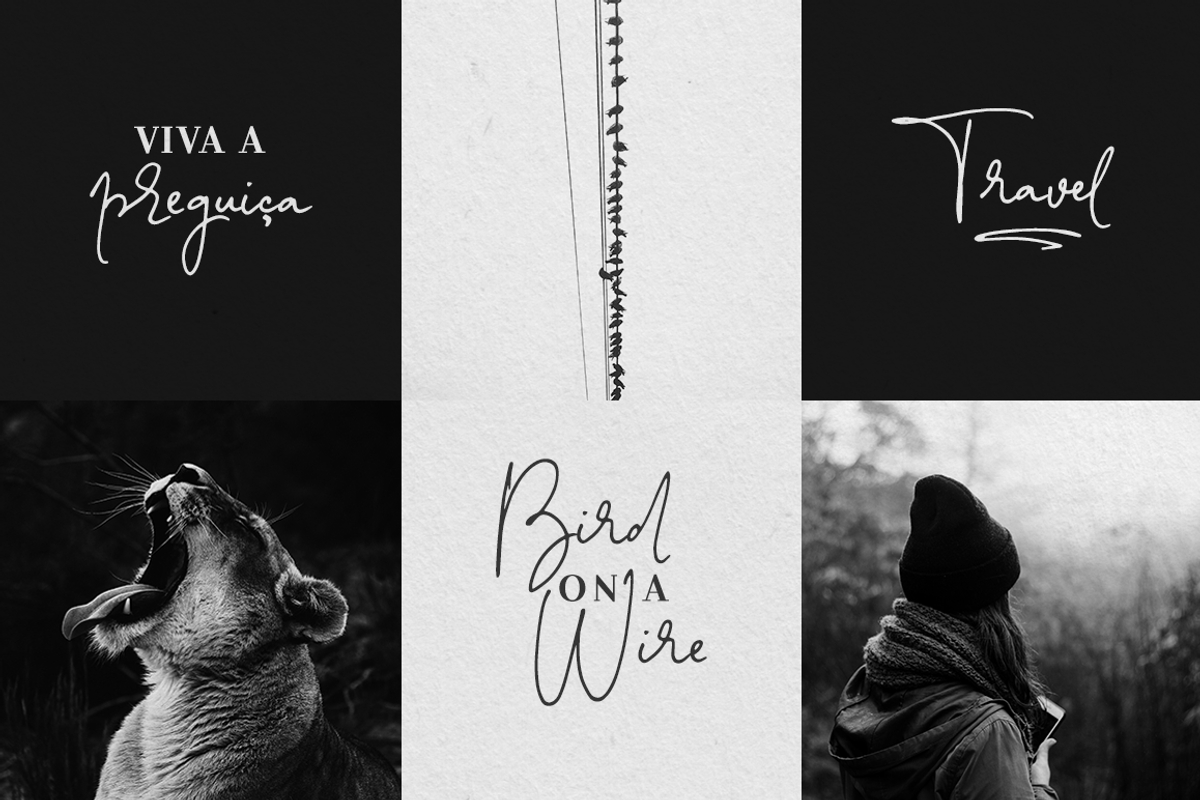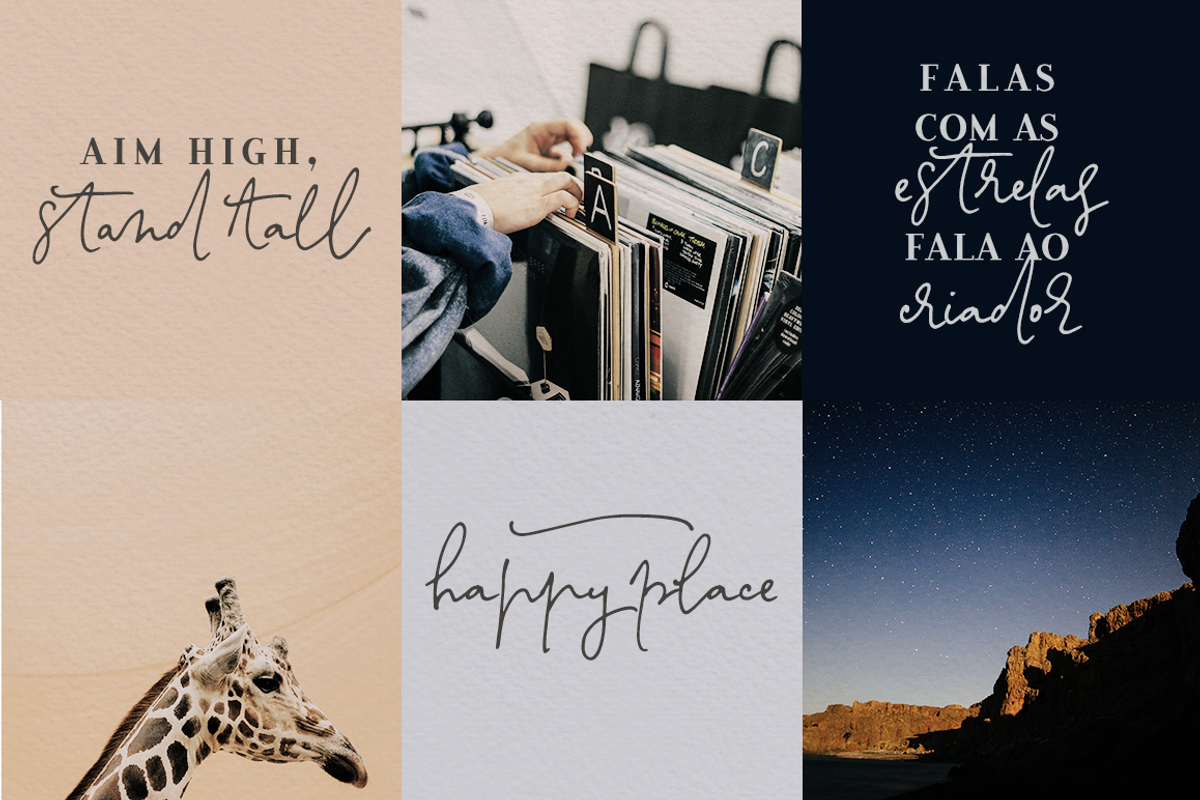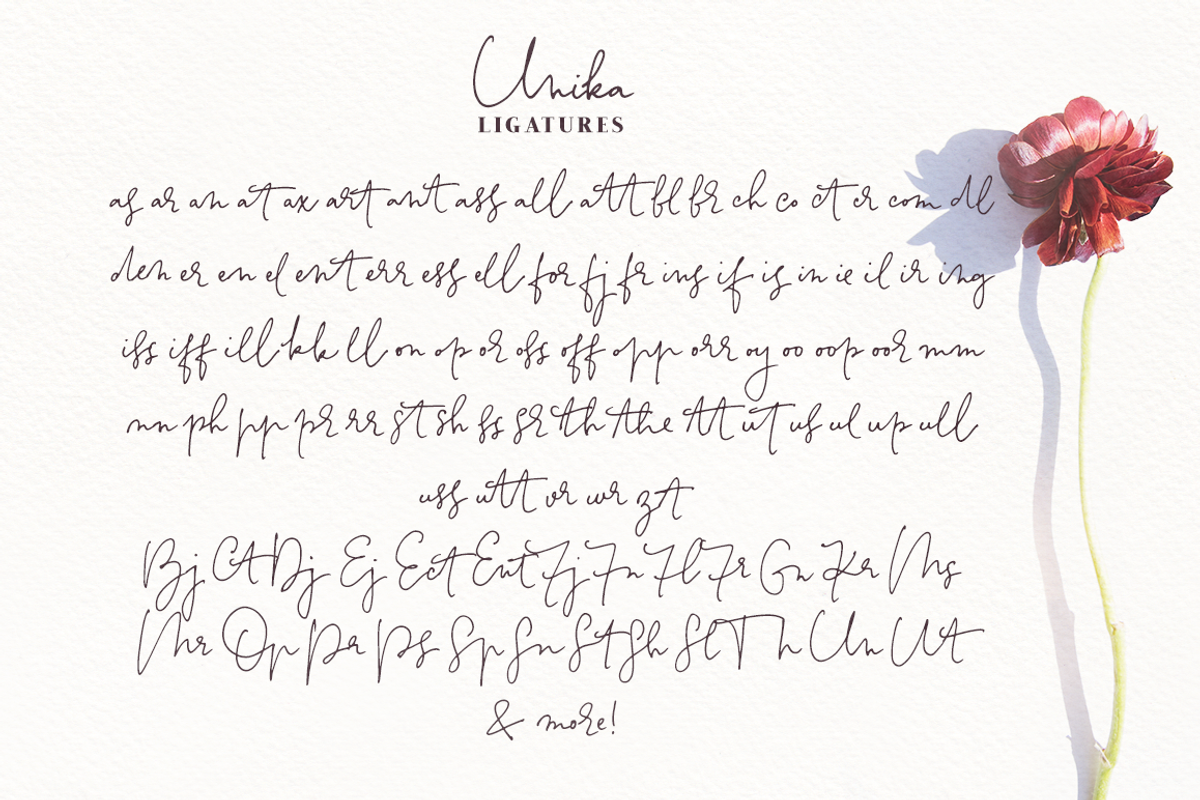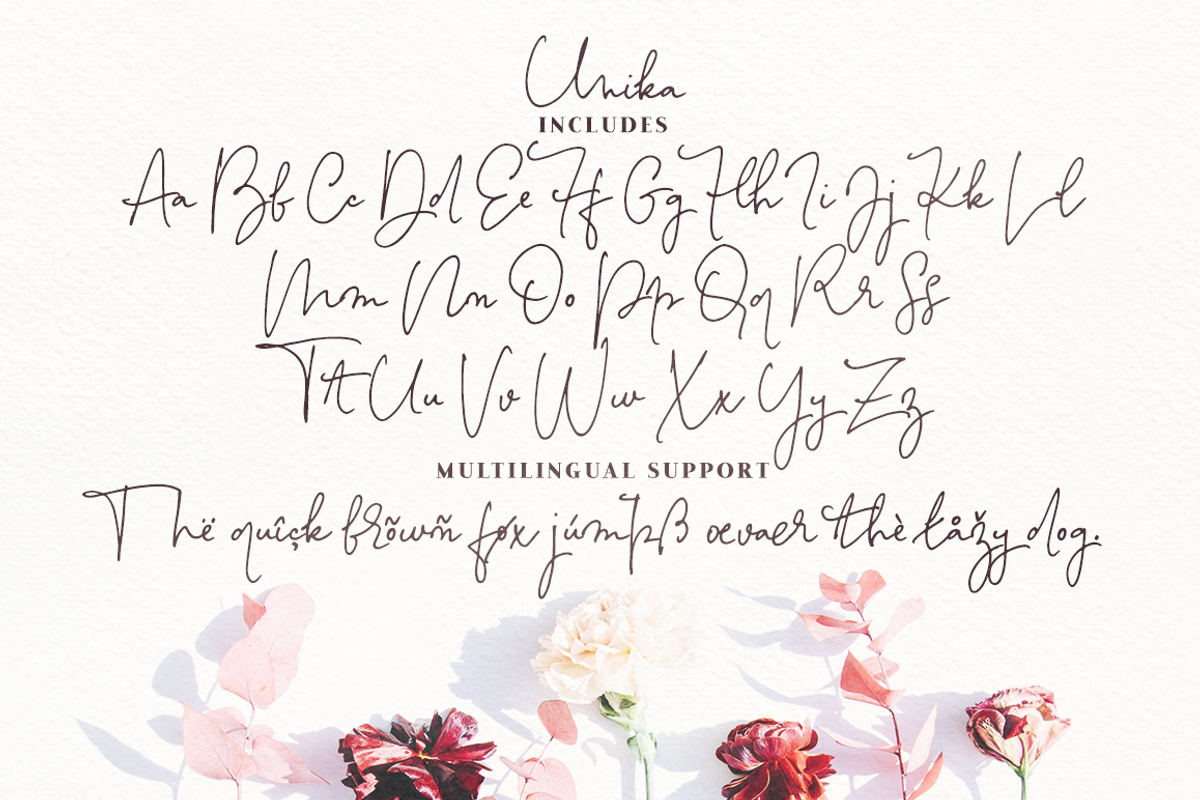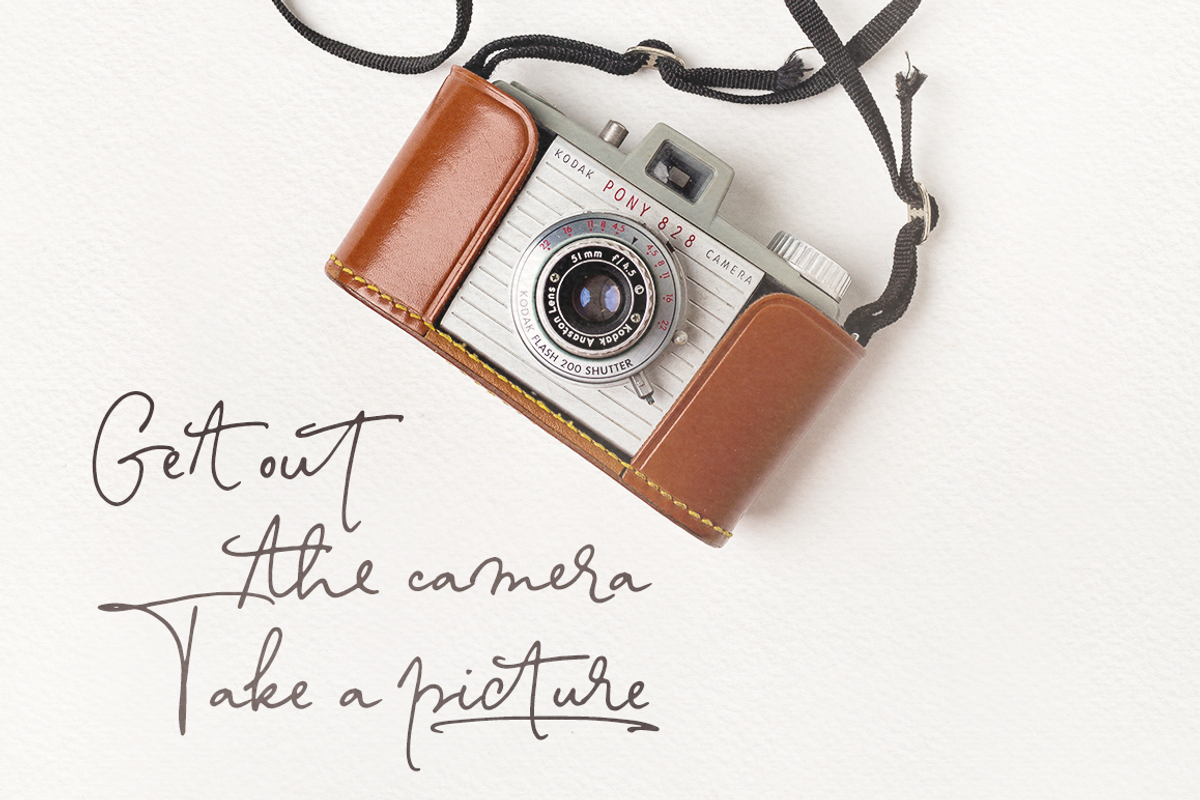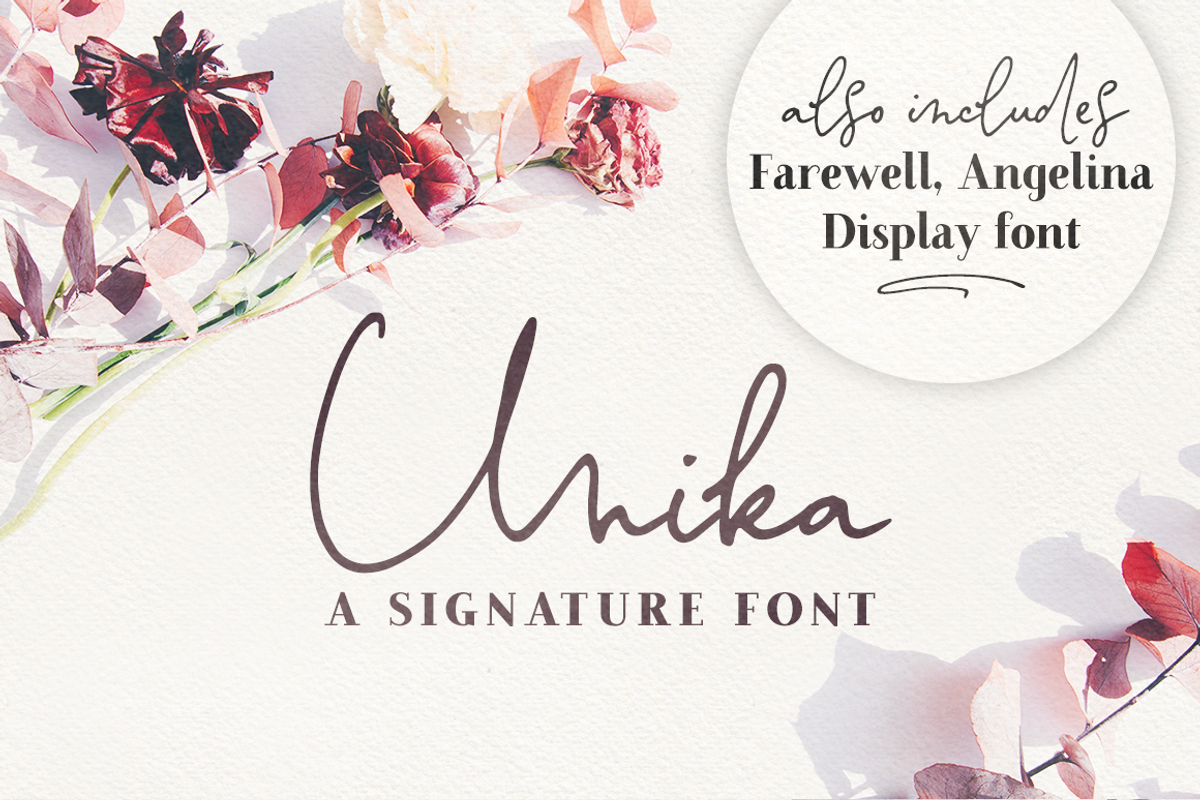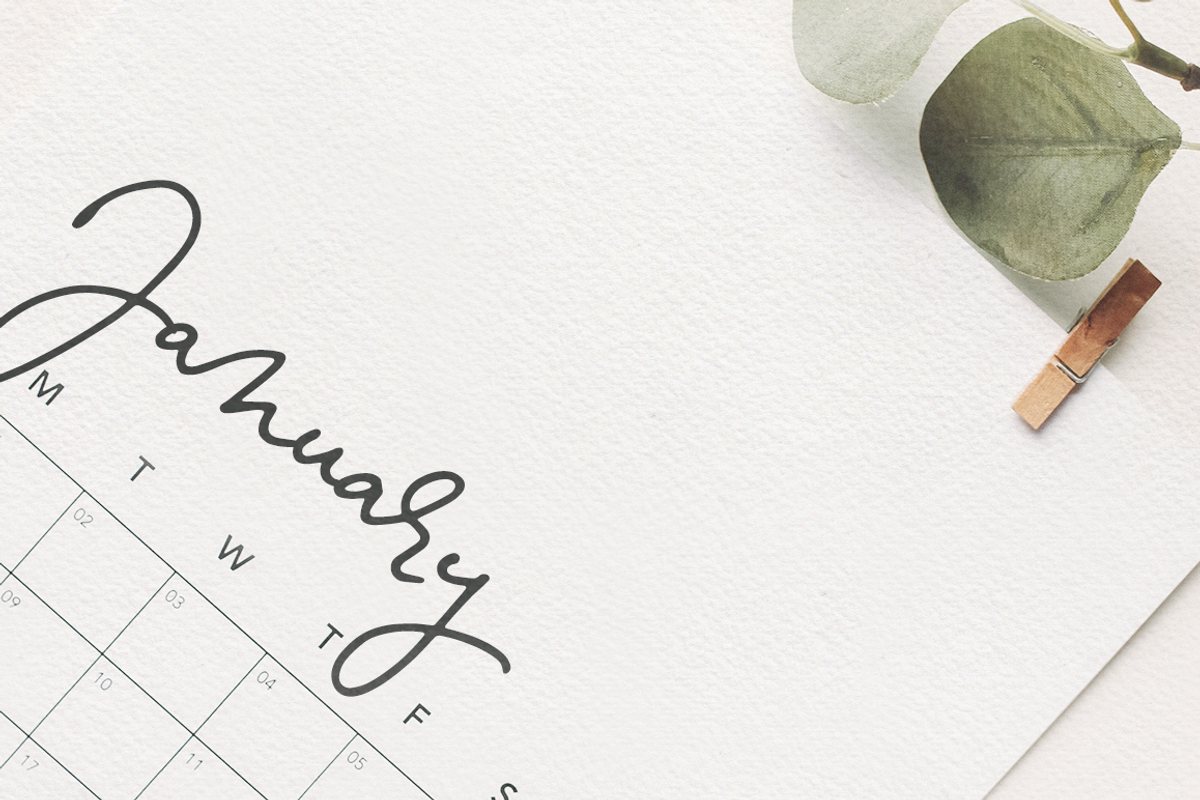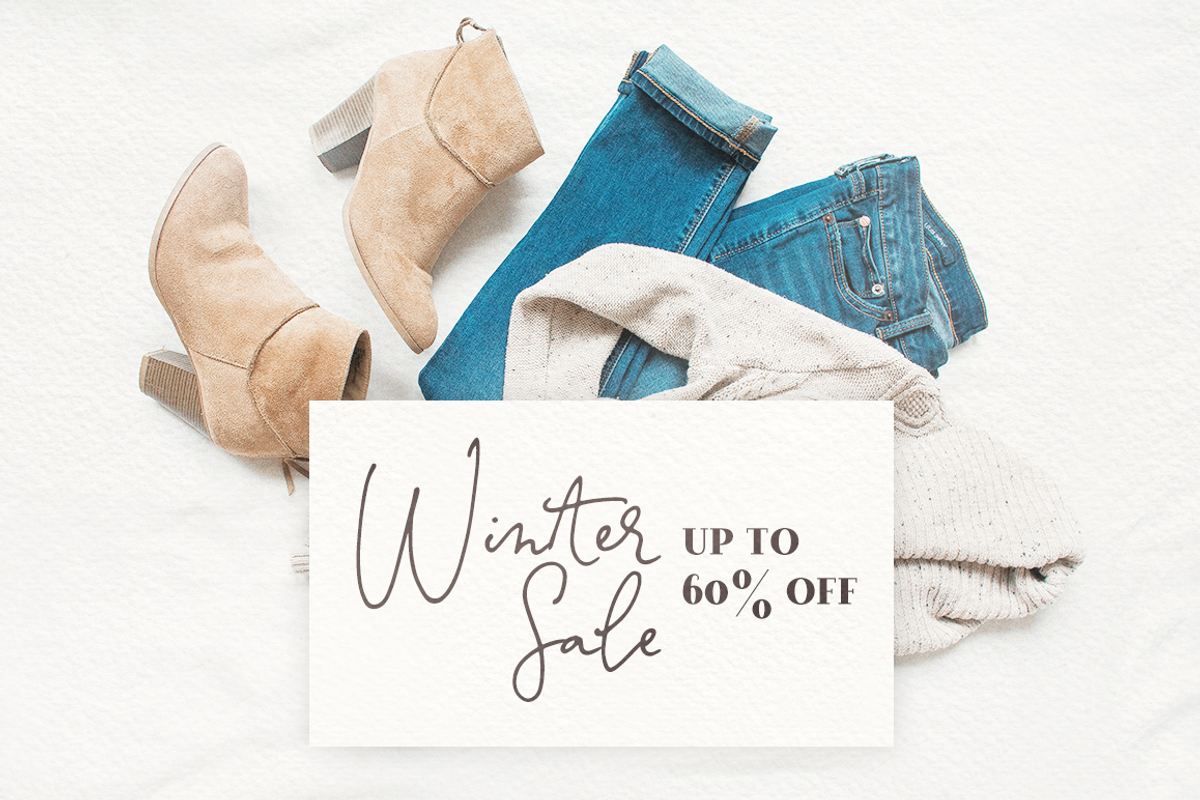
Unika Lite signature handwritten font
Unika Lite is the font portion of the Unika font and texture set ( ). The Unika signature font includes:
100+ ligatures that will give your texts a real handwritten look
a set of 52 swashes to add visual interest to your texts
a bonus slant version of the font, in case your designs need a more dramatic look
Perfect for beautiful and easy designs with a handwritten feel, such as postcards and notes, creating logotypes, social media posts, branding and packaging, etc.